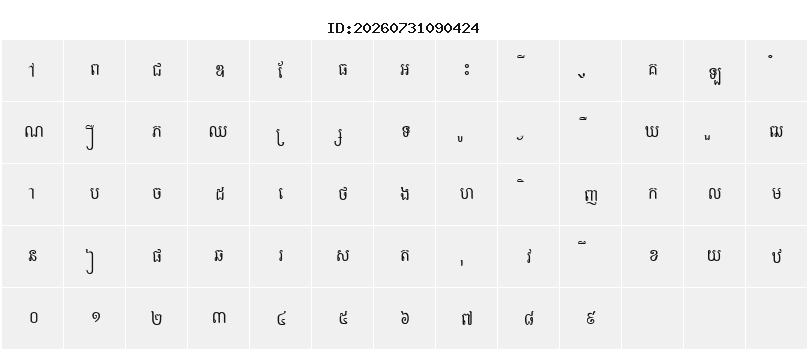
Limon S7 Preview
• Font Name: Limon S7
• Full Font Name: Limon S7
About Limon S7.ttf
Limon S7.ttf is a modern, elegant sans-serif font designed for ultimate readability and visual harmony. Perfect for branding, headlines, web design, and print materials.